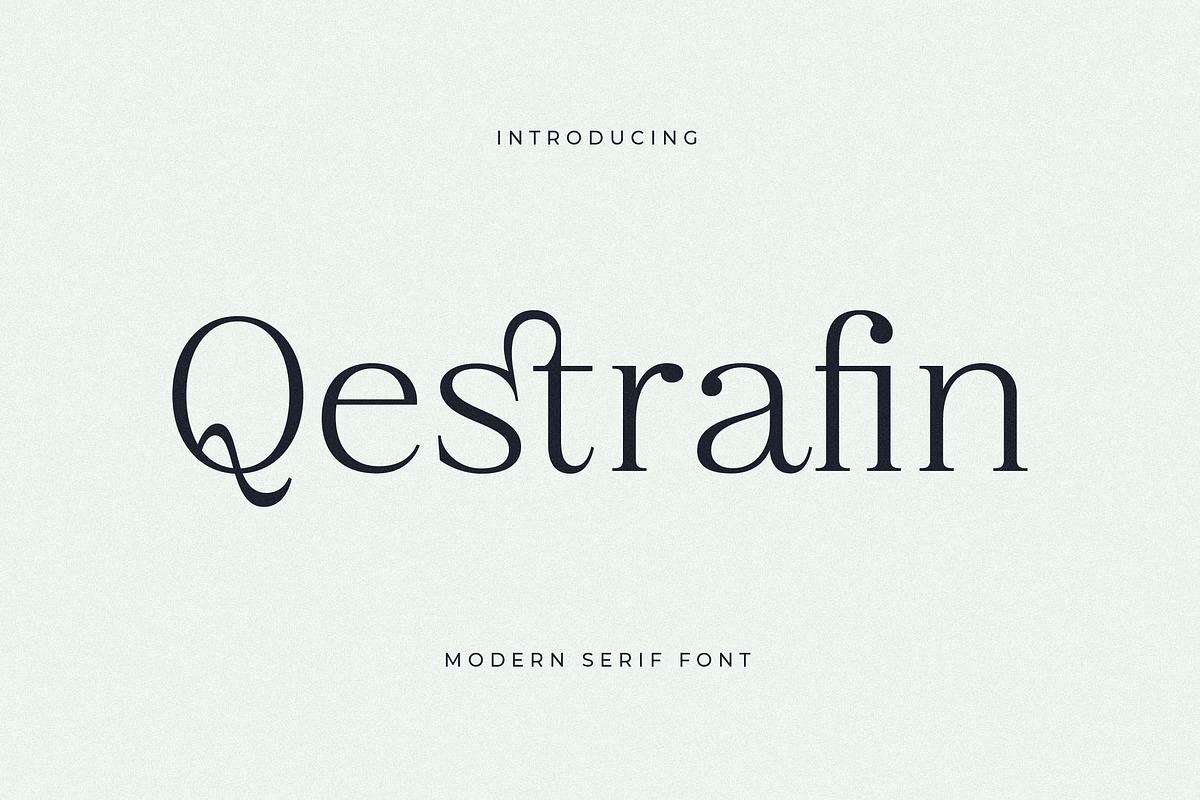
Qestrafin Modern Serif Font Free Download is a sophisticated and high-contrast serif typeface designed to make a bold yet elegant statement. With its sharp serifs, refined curves, and luxury-inspired details, Qestrafin is perfect for editorial design, upscale branding, fashion magazines, logo design, and modern packaging.
This font blends classic serif heritage with a contemporary twist, making it ideal for both bold headlines and stylish body text. Qestrafin features stylish alternates and ligatures to help you create beautifully customized typography with ease.